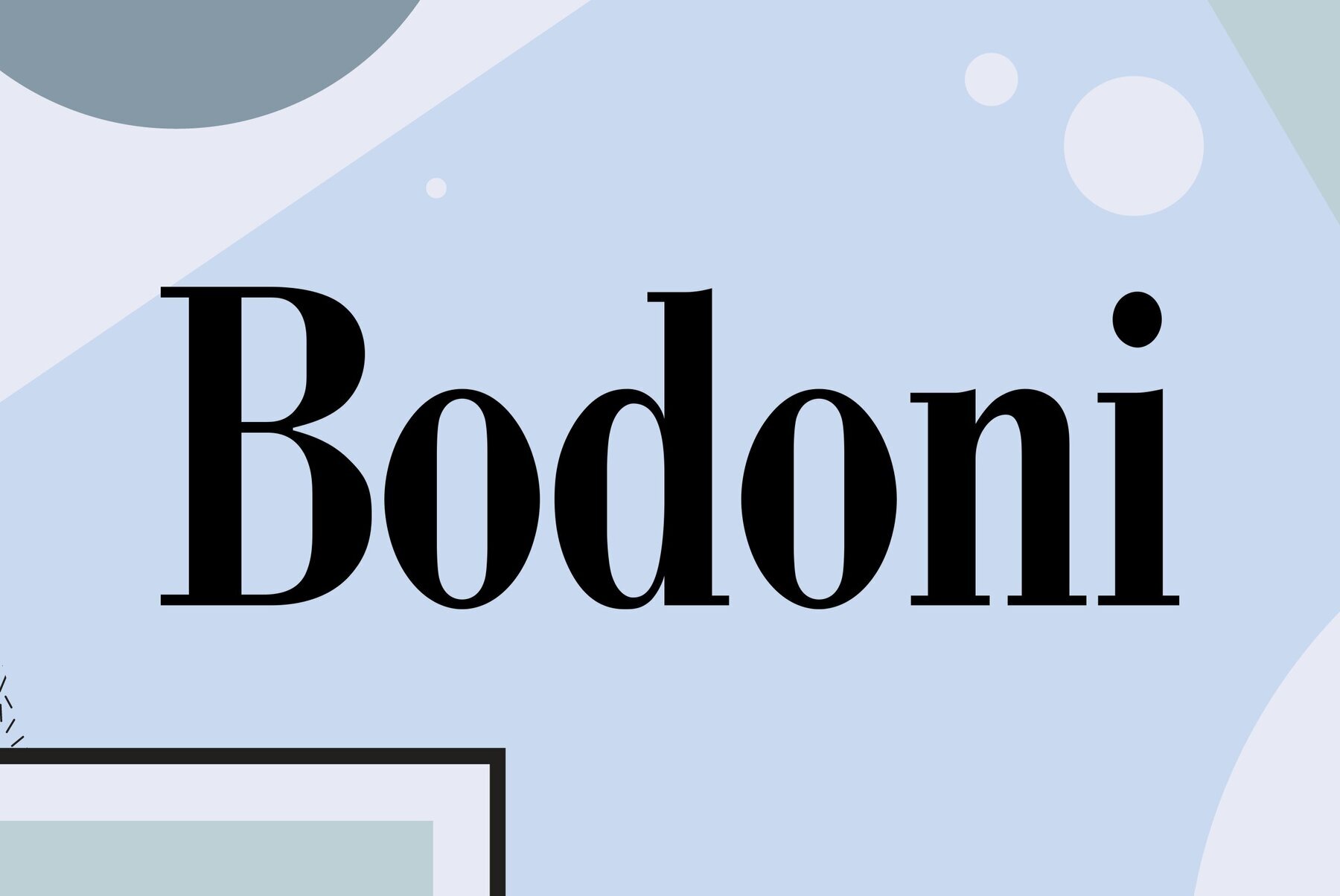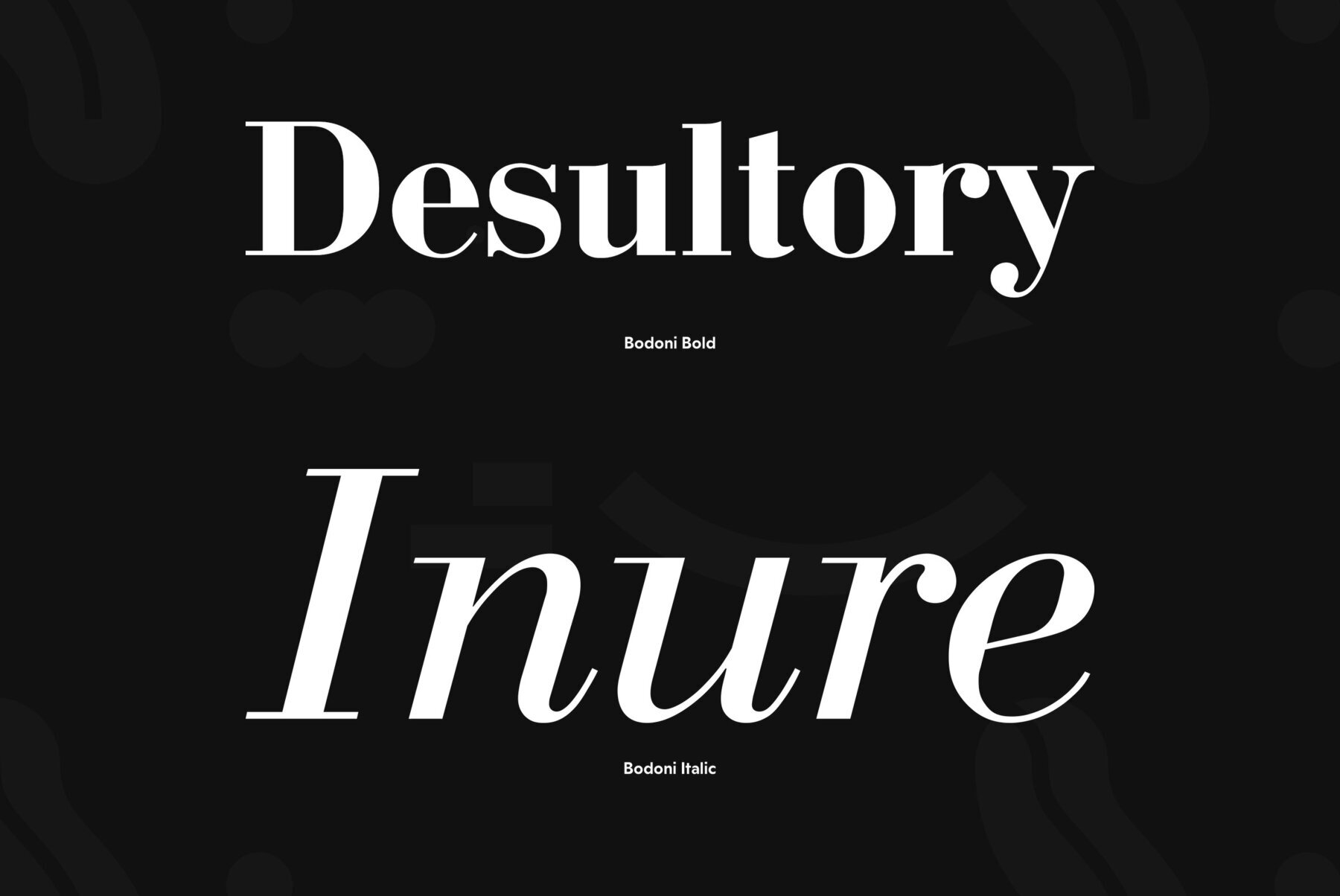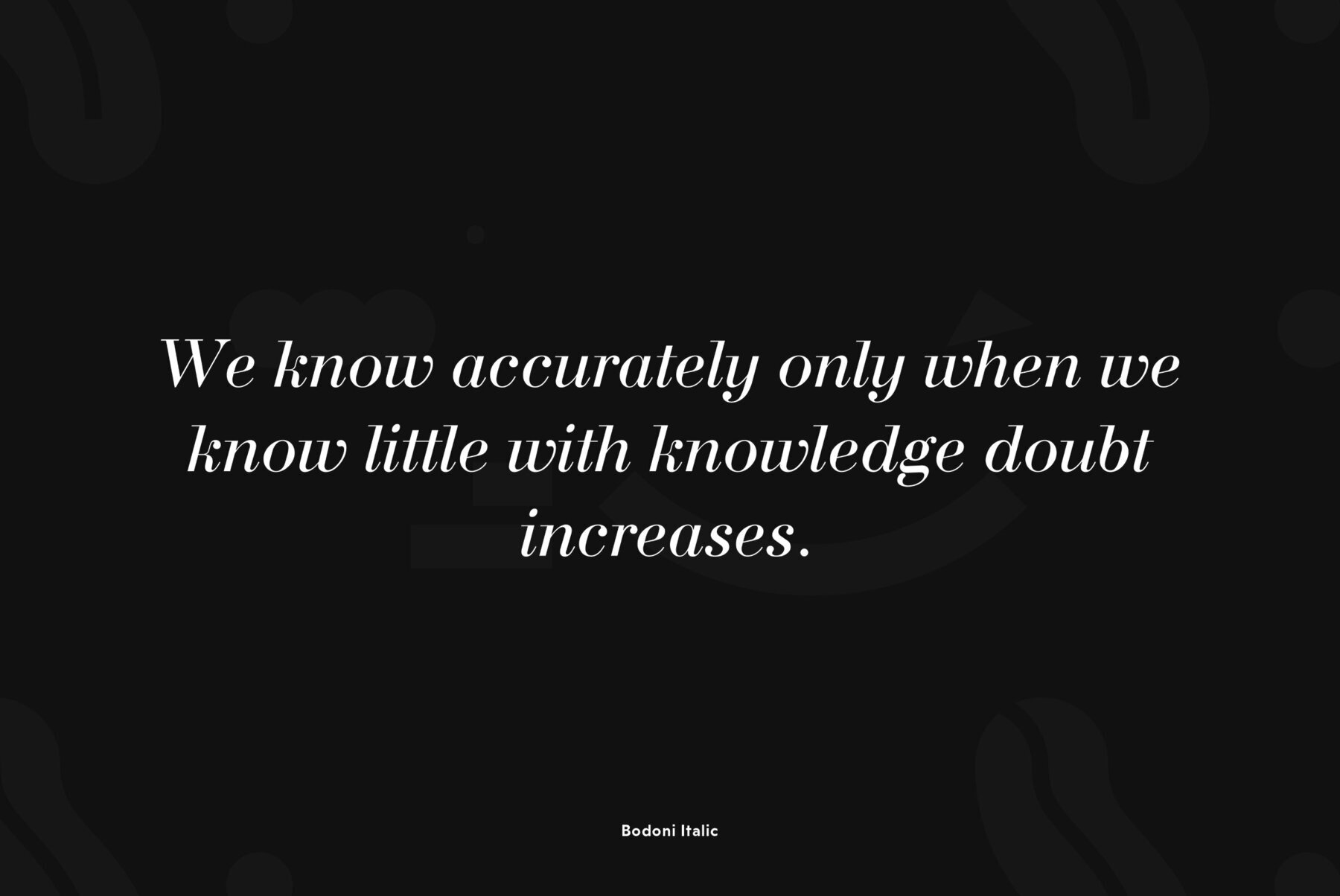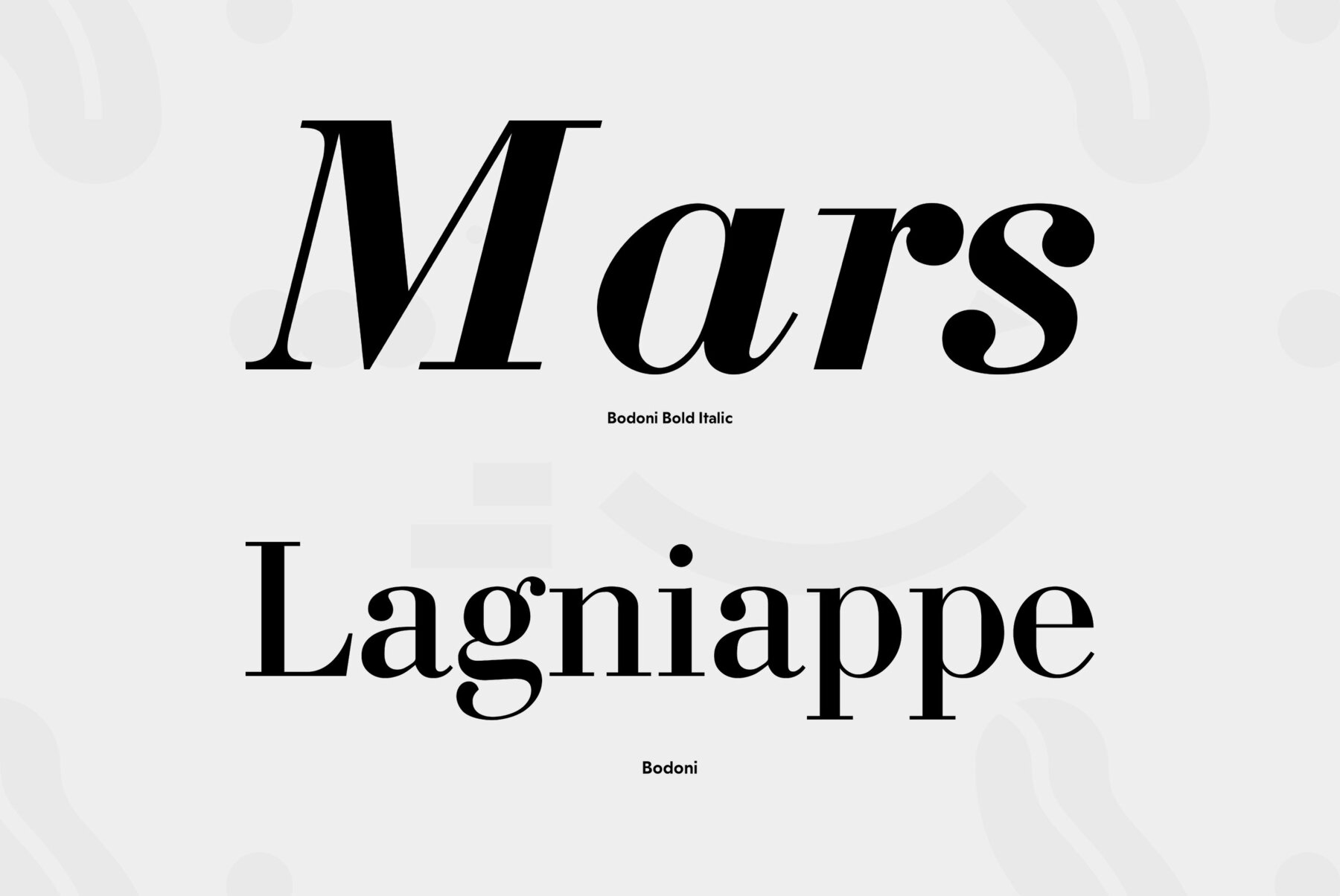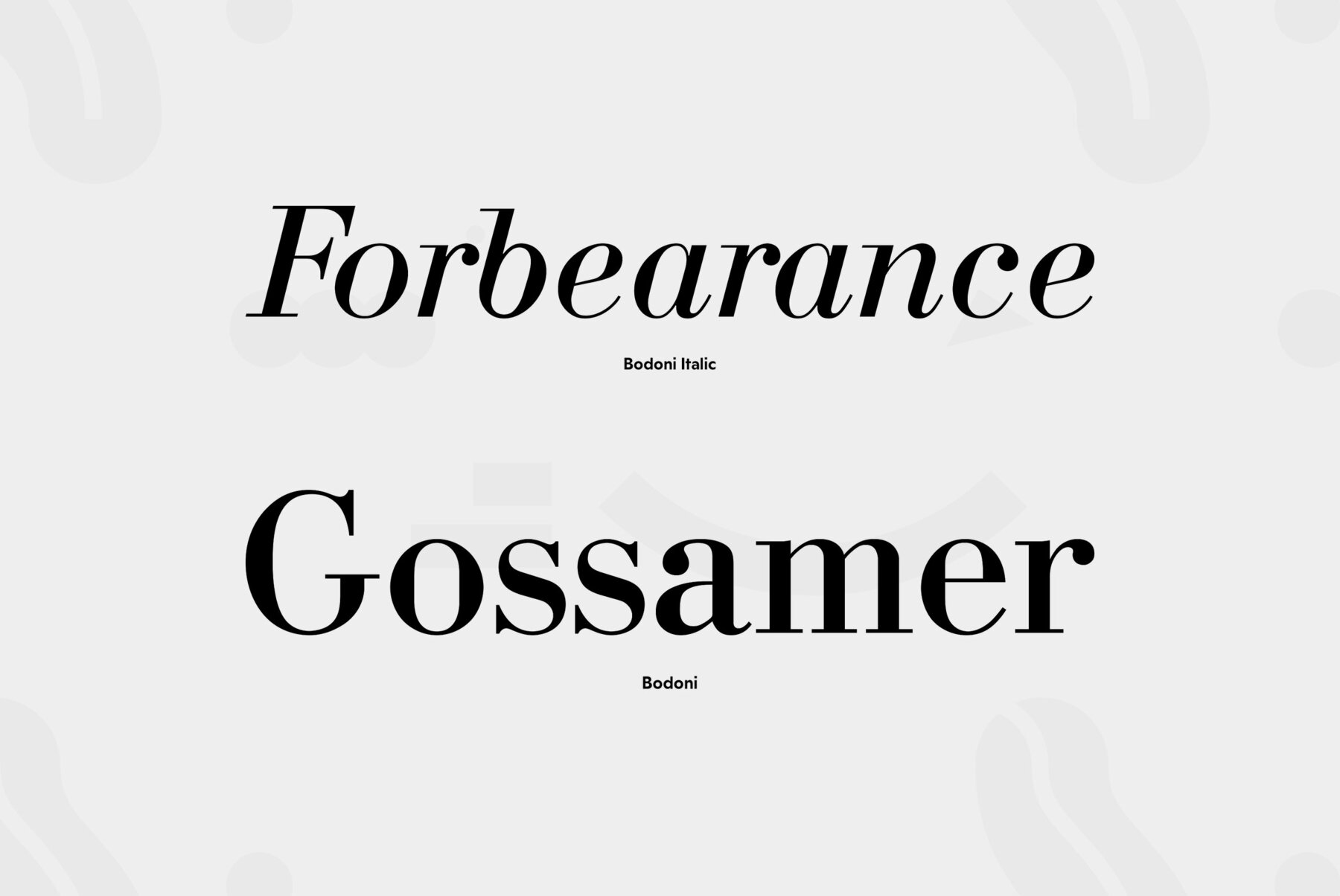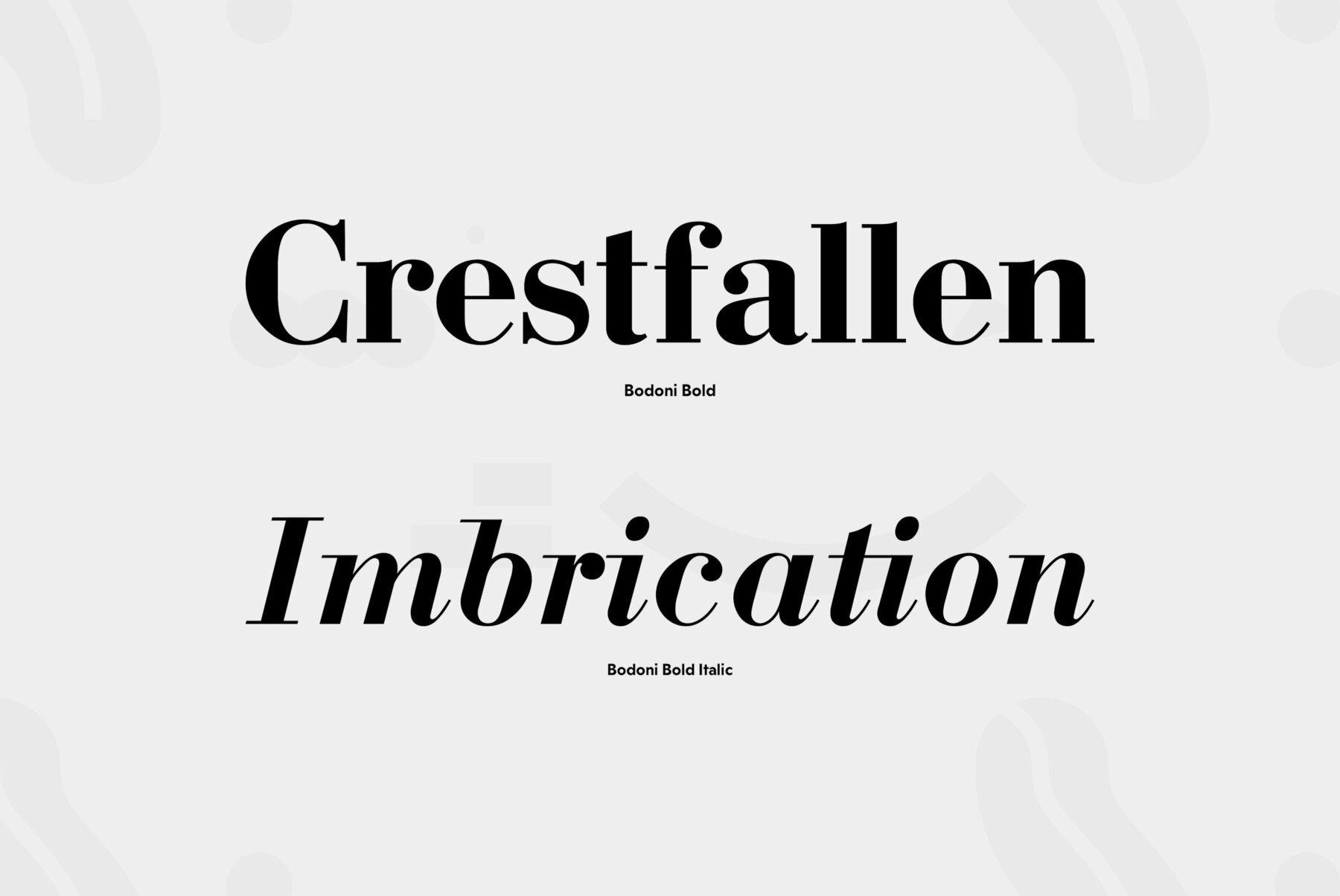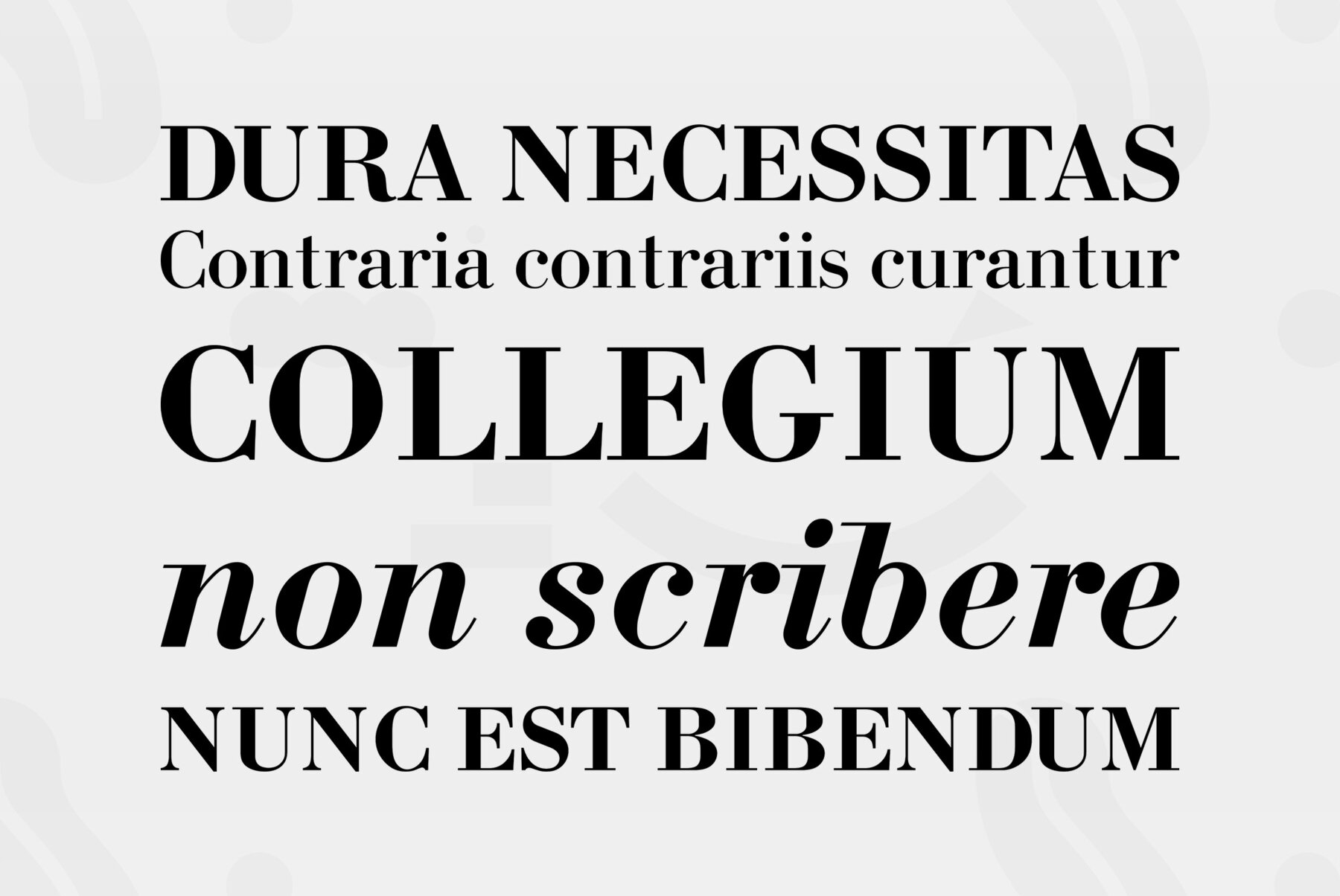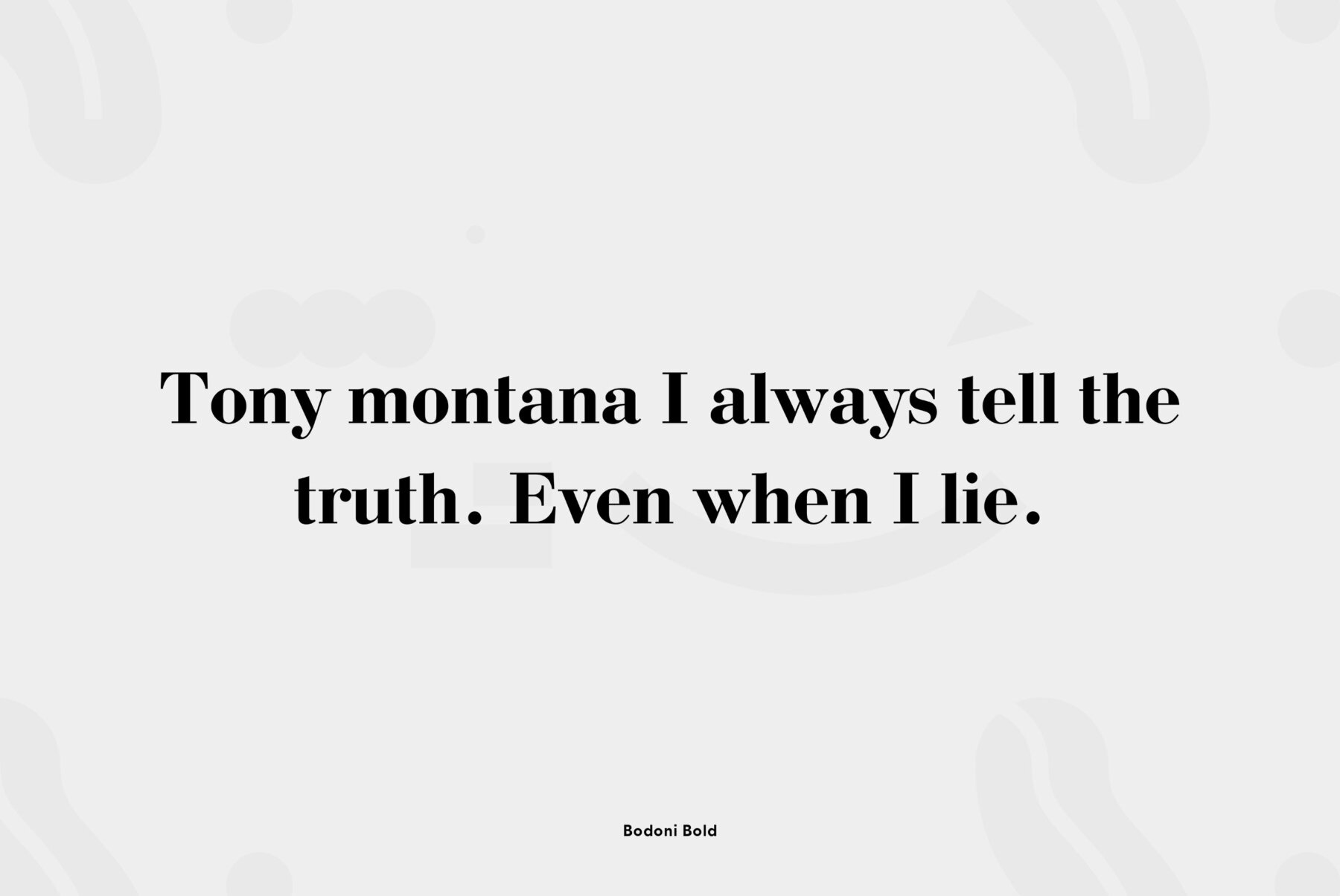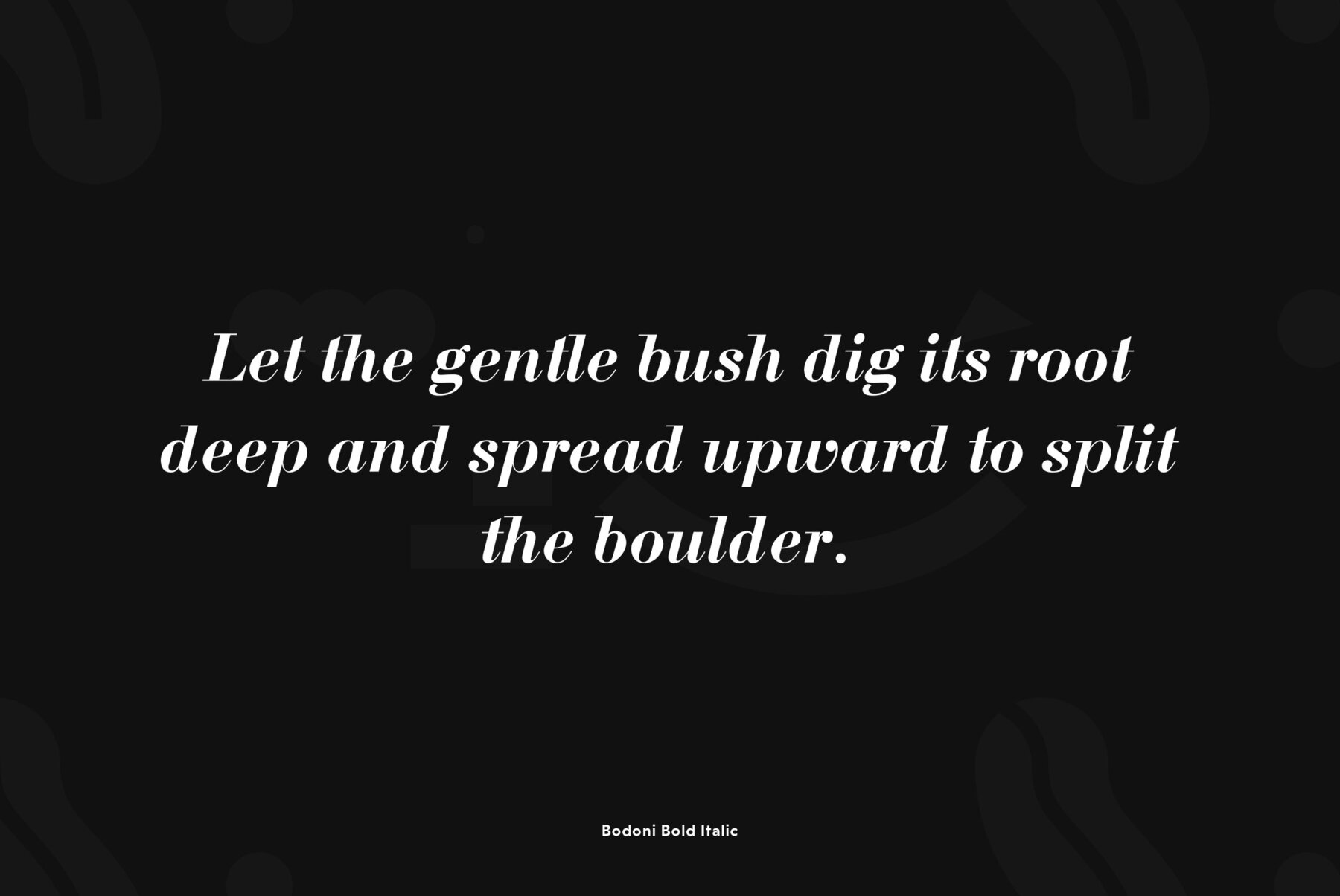
Designed at ParaType (ParaGraph) in 1989 by Alexander Tarbeev. A modern replica of the typeface by Giambattista Bodoni, the Italian punchcutter and typographer of the late 18th century. Bodoni was a director of printing house of Duke of Parma in Italy. His early types were based on those of Fournier and Didot, but he developed the designs to become what are now considered to be the first modern typefaces. His letters have strong vertical stress, sharply contrasting thick and thin strokes and unbracketed hairline serifs. The contrast of thick and thin in Bodoni typefaces can produce a sparkling effect on a page: should be carefully used in texts; good for headlines and display. Condensed and decorative styles were added in 1993–97.